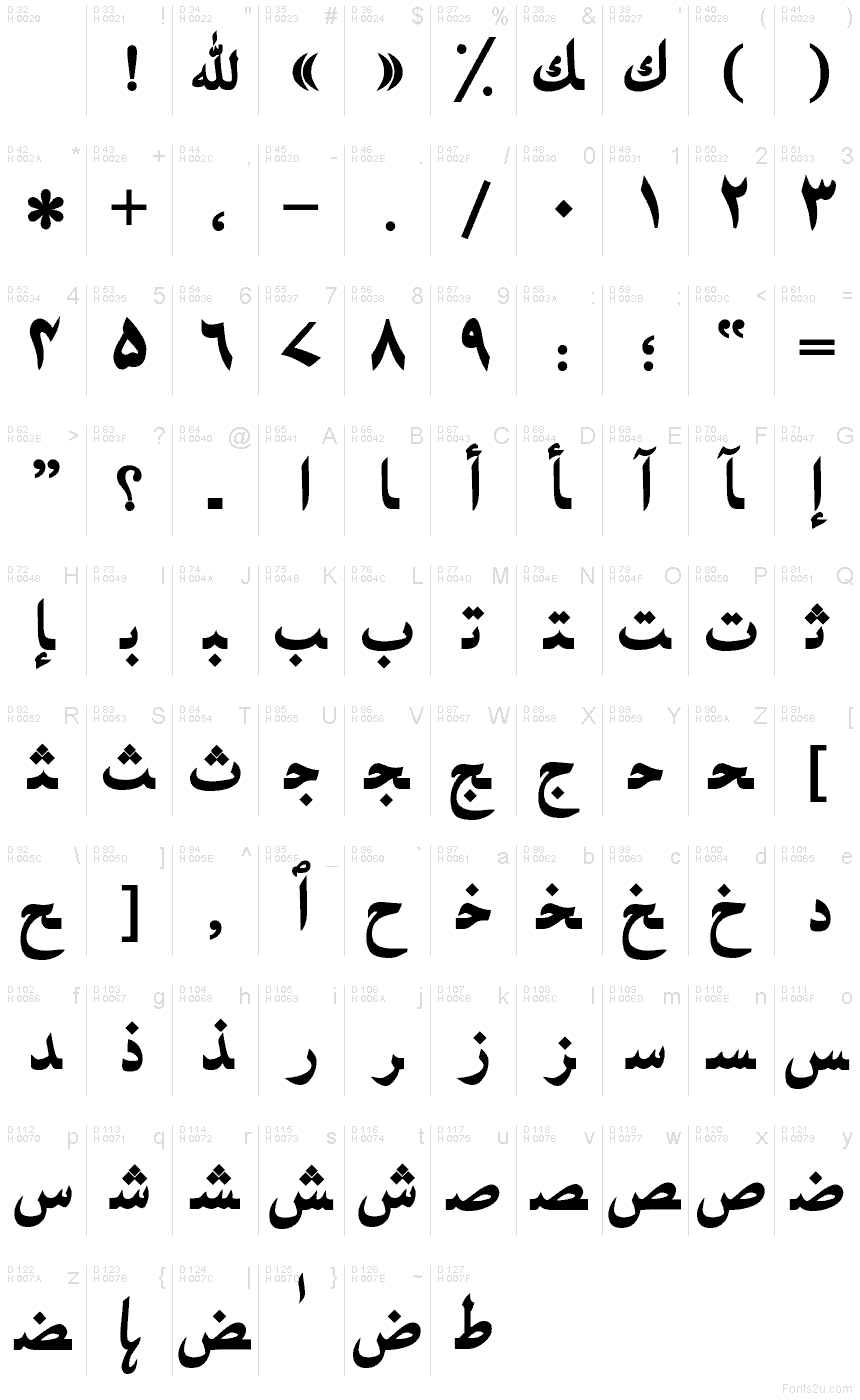
UrduNaskhSSK Bold
UrduNaskhSSK Bold font by Salik Sigdel and Suman Shrestha is an Arabic display typeface with condensed bold characters that look equally as artistic in lowercase and small caps. The font design is classical, elegant, and culturally rich with its ornamental details. As the name suggests, this typeface belongs to the Naskh script style, which has been adopted as a standard by Muslims.
UrduNaskhSSK Bold font gives you all a designer can wish for when it comes to elegance; professionalism. Use it freely in branding designs (logos & packaging), poster/flyer titles, digital projects (application/website headers), brochures and magazines titles or covers, on book covers for fancy script writing novels/books such as those of Harry Potter.